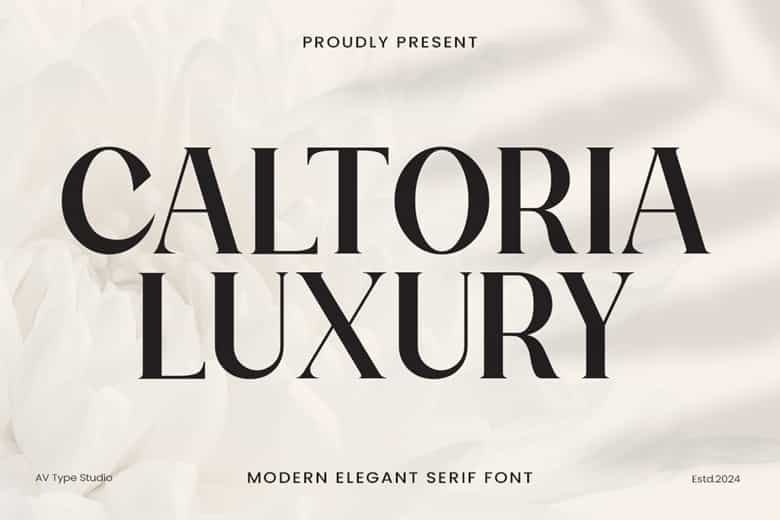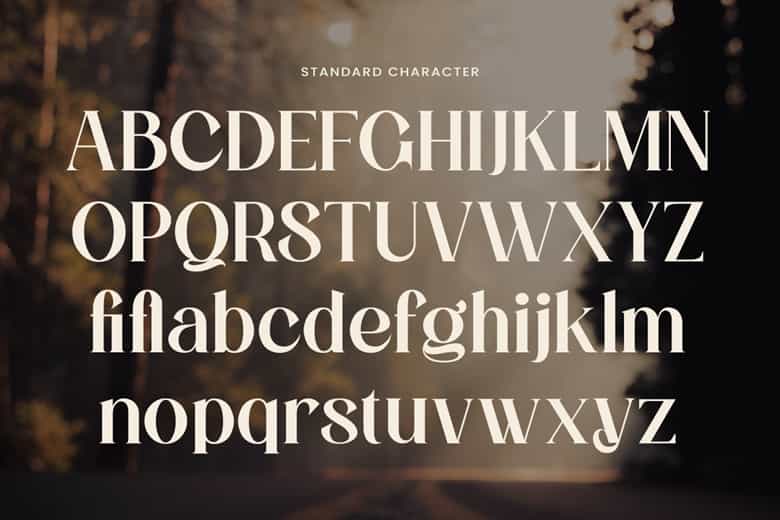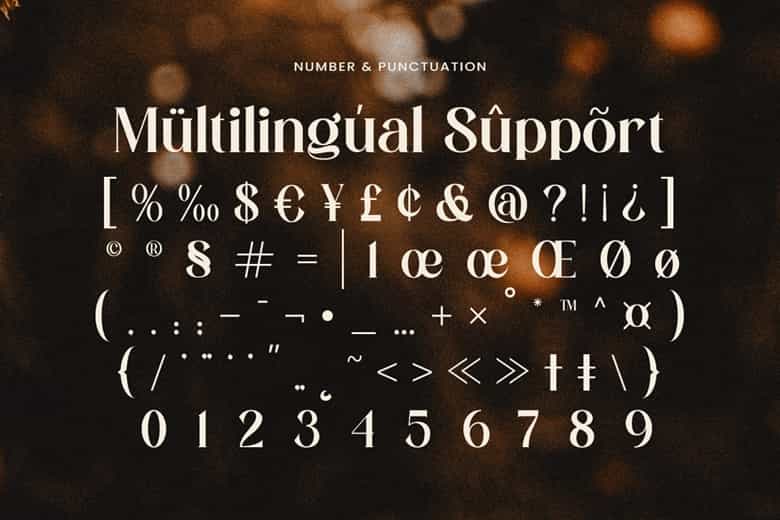
Caltoria Luxury is a modern elegant serif font that aims and offers a chic and versatile solution to various design solutions. This font come with both capitalized and small letters and it is suitable for designing traditional titles, beautiful cards, classy logos and much more. It’s classic and elegant which makes it great for giving your designs that professional look.